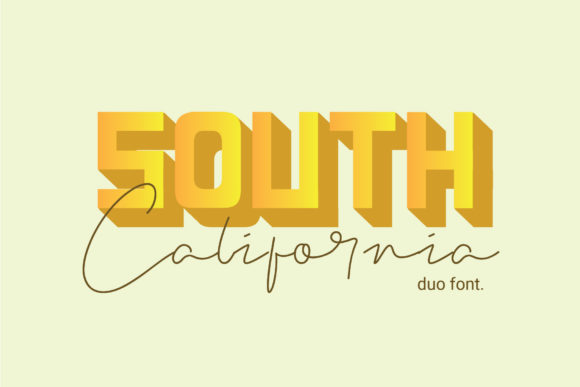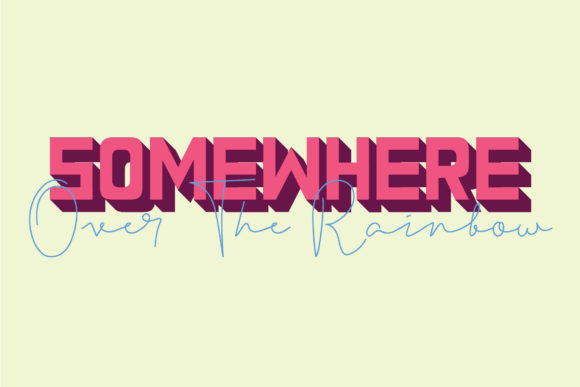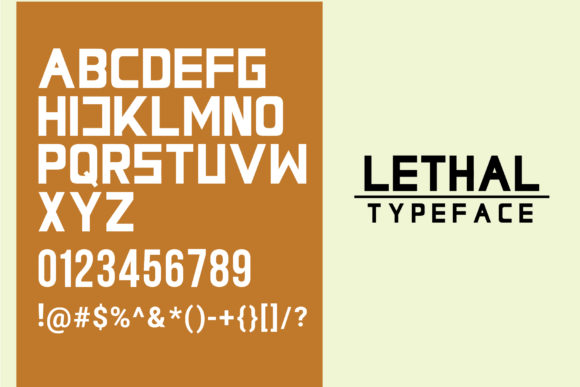
Introduction to Lethal Markwell Duo Font
The Lethal Markwell is a striking font duo.
It has an original handwritten style and is perfect for giving your designs an authentic touch The Lethal includes bold and striking letters and the Markwell will give your designs an elegant touch.
Why Choose Lethal Markwell Duo Font?